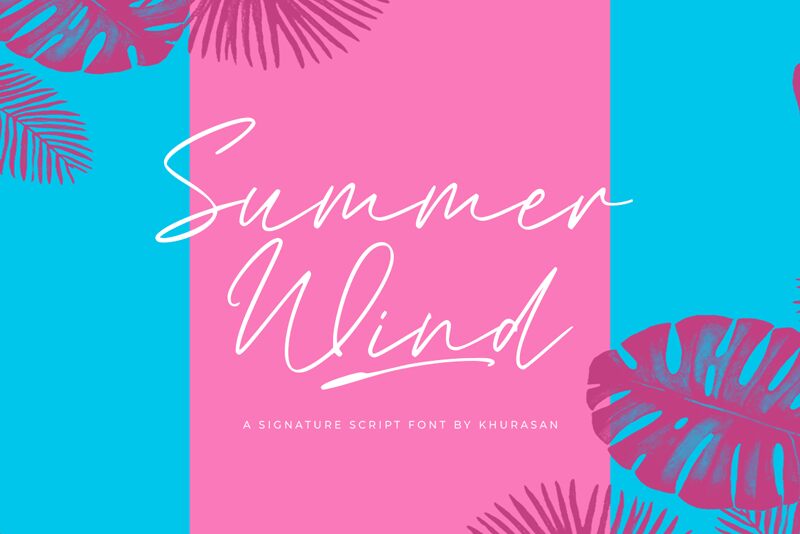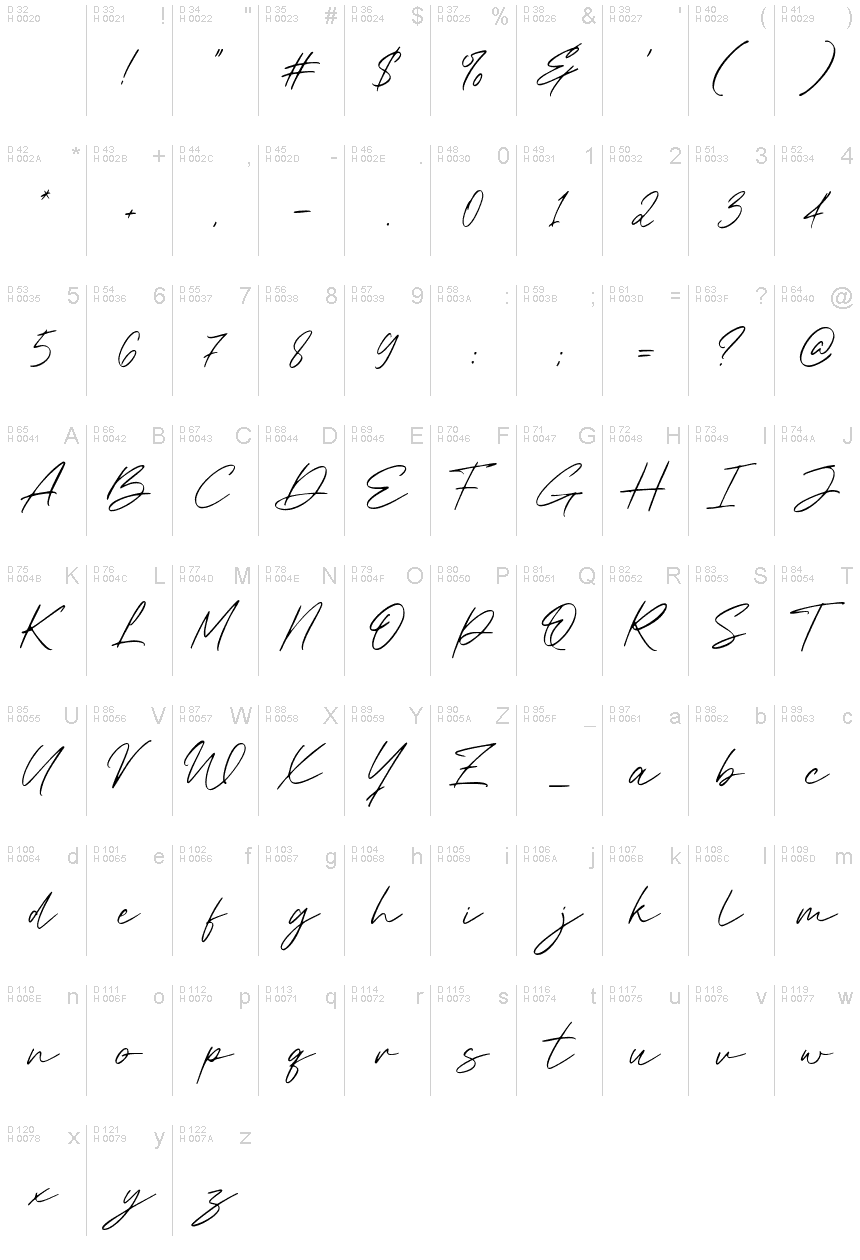
Summer Wind
Summer Wind, a delightful handwritten font by Khurasan, adds a touch of whimsy and elegance to any project. With its extra-light weight, this font exudes a sense of grace and delicacy.
Perfect for wedding invitations, feminine branding projects, and romantic designs, Summer Wind effortlessly captures the essence of beauty. Its flowing strokes and charming imperfections bring warmth and character to logos, packaging, and social media graphics.
Give your creations a soft and dreamy aesthetic with Summer Wind – the epitome of enchantment in typography.